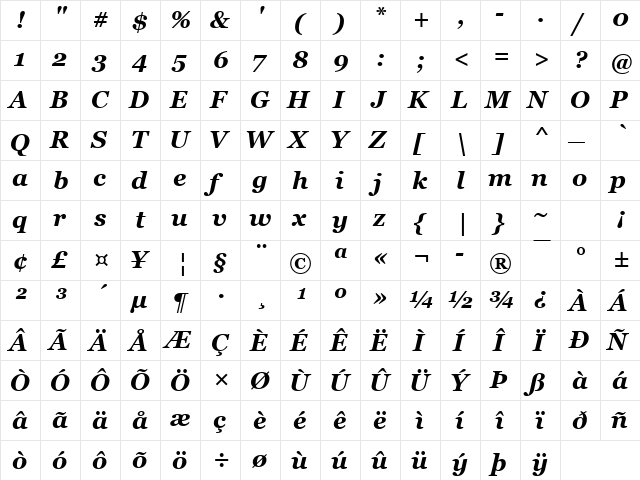
font278 Bold Italic
Design Context for font278 Typeface
font278 takes a measured approach to typography — its balanced proportions and neutral character make it a reliable workhorse for both digital and print work. The slanted form adds forward momentum and visual energy. The heavy weight commands attention and anchors typographic hierarchies.